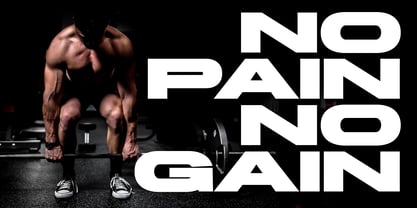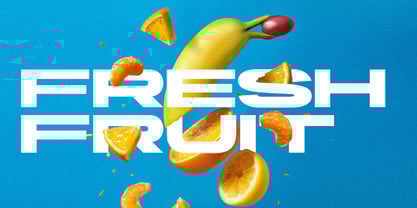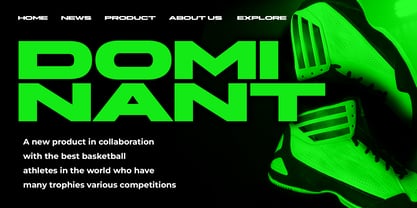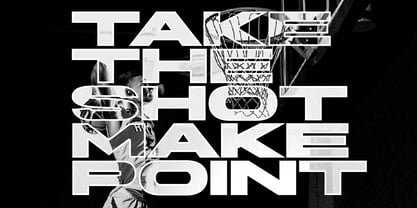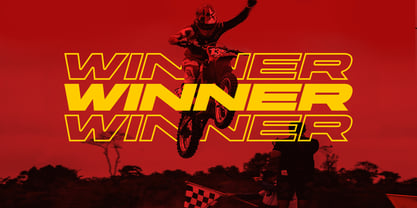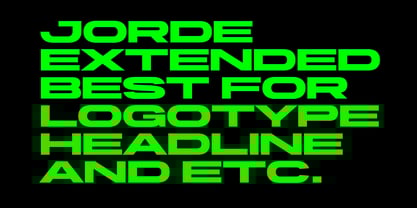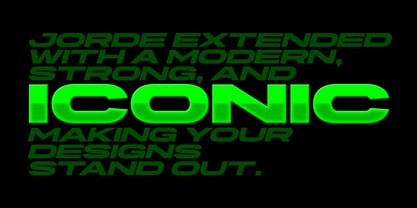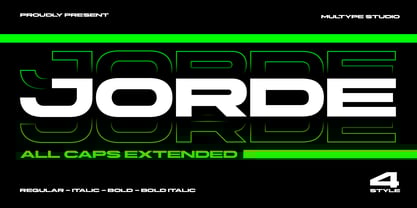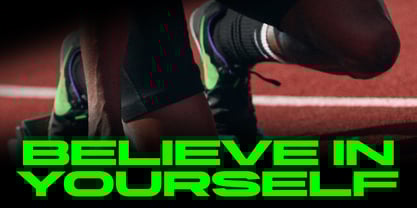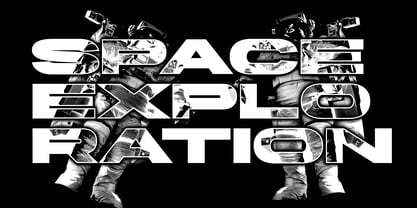
Jorde Extended
Die Schriftfamilie Jorde Extended wurde von Mulia Yanto entworfen und von Multype Studio veröffentlicht. Jorde Extended enthält 4 Stile und Familienpaketoptionen. Mehr über diese Familie
Jorde Extended is a powerful and futuristic all-caps sans serif typeface designed for impactful titles, logos, and sports branding. With its strong geometric shapes, extended width, and dynamic letterforms, this font brings a sense of speed and performance to any design. Perfect for posters, racing themes, esports logos, headlines, and modern digital projects. Includes numbers, punctuation, and multilingual support for global versatility. Bring your designs to life with the bold energy of Jorde Extended! What’s Included : Jorde Extended All Caps ( Regular, Italic, Bold, and Bold Italic ), Numbers & Symbols, Works on PC / Mac, Simple installations Accessible in the ( Adobe Illustrator, Adobe Photoshop, Adobe InDesign, even work on Microsoft Word ), PUA Encoded Characters, Fully accessible without additional design software, Multilingual support. Thank you for your purchase! Hope you enjoy with our font!